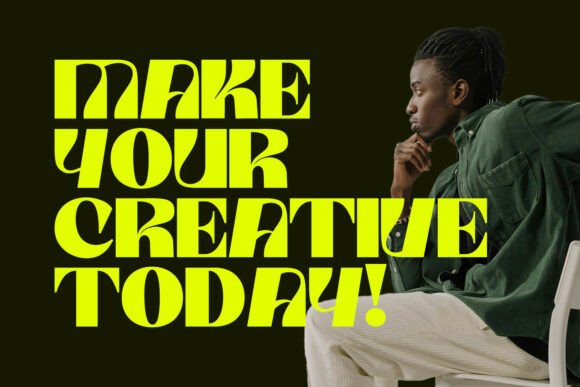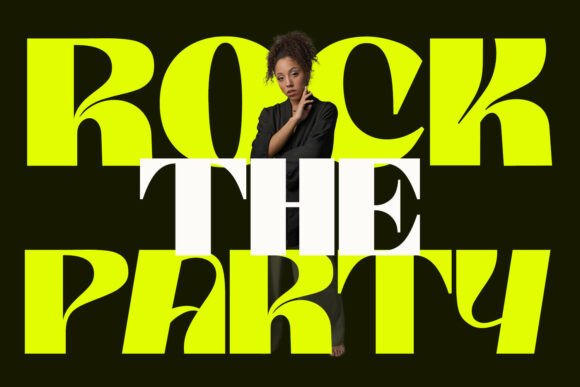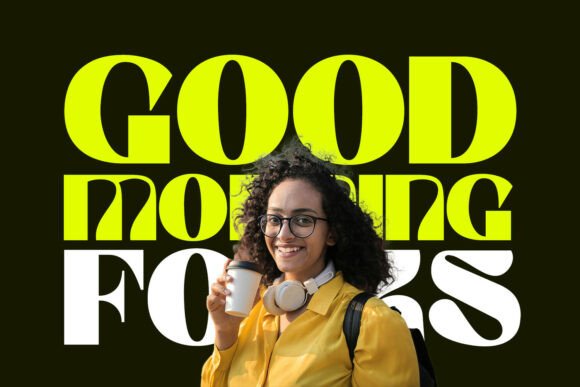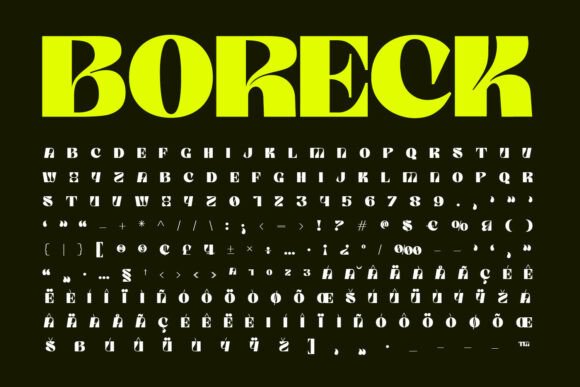
Introduction to Boreck Display Font
As designers, we’ve all been there – staring at a blank canvas, desperate for the perfect font to bring our creative project to life. And then, like a breath of fresh air, we stumble upon it – a font that effortlessly elevates our design to new heights. For many, that font is Boreck Display Font, a game-changing addition to any design arsenal.
With its striking allure and bold, crisp aesthetics, Boreck Display Font is the ultimate design resource for designers seeking to make a lasting impression. Whether you’re working on a high-profile magazine cover or a promotional banner, this versatile font is sure to deliver a potent presence that grabs attention and refuses to let go. And the best part? It’s compatible across all major platforms and browsers, making it a seamless addition to your design workflow.
Key Features of Boreck Display Font
- High-quality font designed for creative projects and design resources, offering a unique and stylish look.
- Designed with a large x-height and open forms, making it highly legible and perfect for display use.
- Perfect for designers looking for a unique and high-quality font to elevate their creative project and design resource.
Honest Review: Boreck Display Font
I recently stumbled upon the Boreck Display Font while searching for a high-quality design resource for a creative project. I was pleasantly surprised by the results and thought it was worth sharing my experience with the design community.
- The Boreck Display Font has a sleek, modern design that’s perfect for headings and titles.
- The font is highly customizable, allowing designers to adjust the font size, color, and style to suit their needs.
- The Boreck Display Font may not be suitable for body text, as it’s designed for headings and titles only.
- Some users may find the font’s modern design too bold or overwhelming for certain projects.
Overall, I’m impressed with the Boreck Display Font’s quality and versatility. It’s a great addition to any designer’s toolkit, especially for creative projects that require a modern and eye-catching font. I highly recommend it for designers looking for a high-quality, free design resource.
How to Use Boreck Display Font
The Boreck Display Font is a high-quality, unique font perfect for any creative project. Its sleek and modern design makes it an excellent choice for designers looking for a standout font.
To get the most out of the Boreck Display Font, use it in combination with bold colors and striking graphics. You can also experiment with different font sizes and styles to create a unique visual effect.
The Boreck Display Font is perfect for:
– Logos and branding
– Social media graphics
– Presentations and reports
– Document design